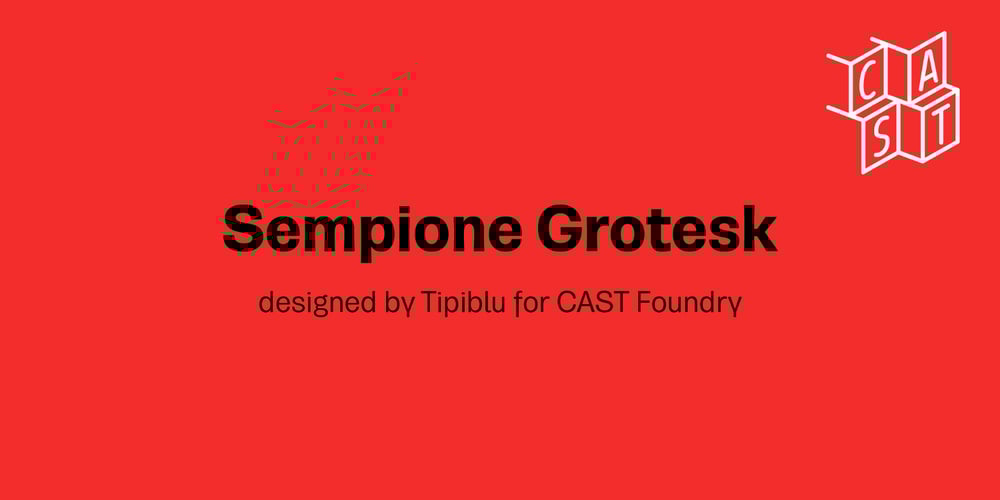
Sempione Font Family was designed by Tipiblu and published by CAST. Sempione contains 28 styles and family package options. Sempione is a spanking new sanserif family suitable for publishing and advertising that looks great in small and large sizes. Its two main styles, Grotesk and Modern, are inspired by the early grots and 20th-century sanserifs. They come in seven weights with the matching italics, Grotesk Cursive and Modern Slanted. The considerable variety of letterforms and styles, along with some peculiar stylistic sets, will be appreciated by designers looking for more freedom of choice.